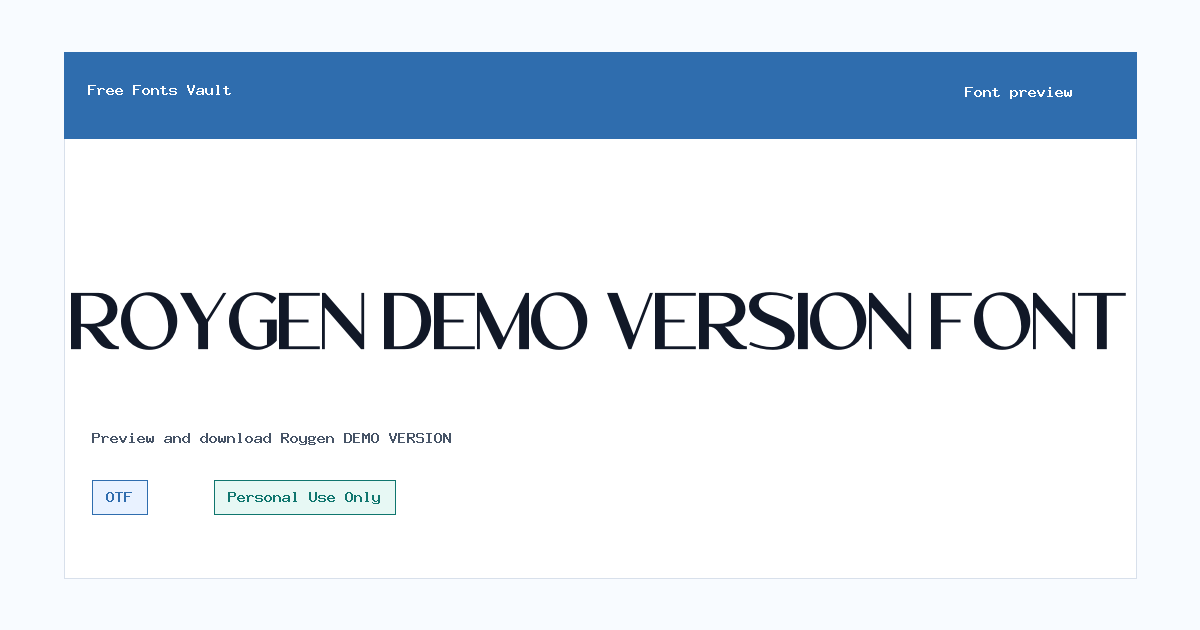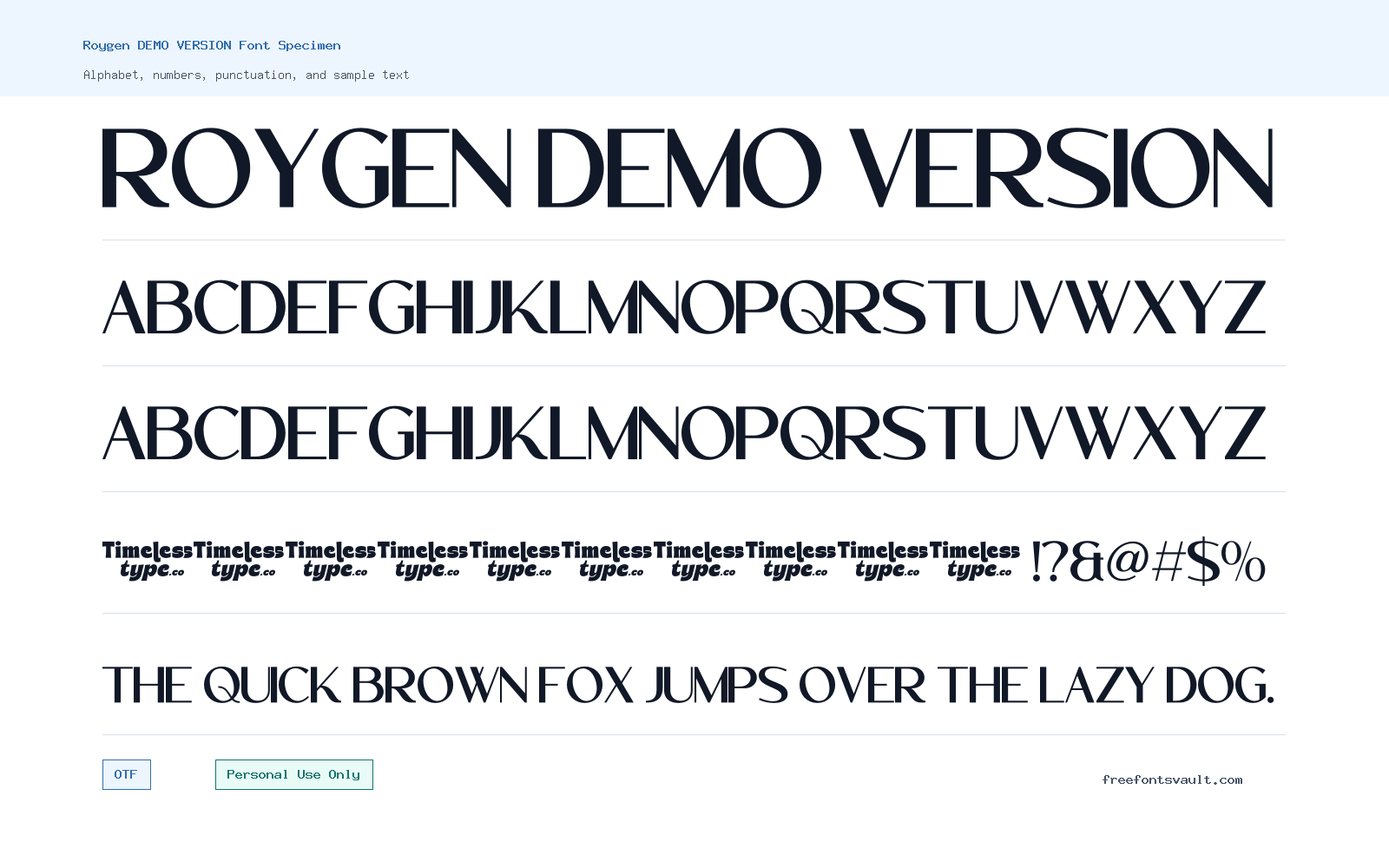
Roygen DEMO VERSION
Roygen DEMO VERSION Font
Roygen DEMO VERSION is a personal-use sans serif font with an OTF file format, made for visitors who want to test a clean display style before using it in design drafts, posters, logo concepts, and visual mockups.
About Roygen DEMO VERSION
Roygen DEMO VERSION is credited to Heru Utama Putra and TimelessType. The available style is a regular-weight OTF font, so it is easy to install in most design apps and test in preview tools. Because this is marked as a demo version, it is best treated as a trial font for personal projects, layout exploration, and early design concepts rather than a finished commercial asset.
Use the preview field to test the words you actually plan to design with. Sans serif display fonts can look very different in a short logo word, a long headline, or a paragraph of body text. Try uppercase and lowercase, spacing changes, numbers, punctuation, and any brand name or poster title you have in mind. If the font feels strong in a headline but tight in longer text, pair it with a simpler neutral sans serif for captions, product details, or web interface copy.
• Sans serif style that can be tested for modern headings, logo sketches, and clean poster text.
• Single regular weight, which keeps setup simple but makes spacing, scale, and pairing choices more important.
• Personal logo concepts and brand-style experiments.
• Poster headlines, social graphics, and title treatments.
• Web mockups where you want to test a clean sans serif display voice.
• Moodboards, typography studies, and presentation drafts.
• Short text blocks such as names, labels, banners, and cover titles.
For logo work, test the exact wordmark at several sizes before committing to it. Look closely at letter spacing around round letters, diagonals, and repeated characters. For posters and social graphics, start with short headlines and increase tracking only if the letters feel crowded. For web mockups, use it mainly for headings or hero text, then pair it with a highly readable sans serif for menus, paragraphs, and smaller UI labels. Since only one regular style is listed, create contrast through size, weight from a companion font, color, spacing, and layout rather than expecting multiple Roygen weights to do the work.
Is Roygen DEMO VERSION good for body text?
It is better to test it first in short text, headings, and display settings. For long paragraphs, pair it with a simpler reading font unless the preview shows strong readability at small sizes.
What should I pair it with?
Try a neutral sans serif for body copy, captions, and interface text. Keep the supporting font quiet so Roygen DEMO VERSION can carry the headline or logo-style treatment.